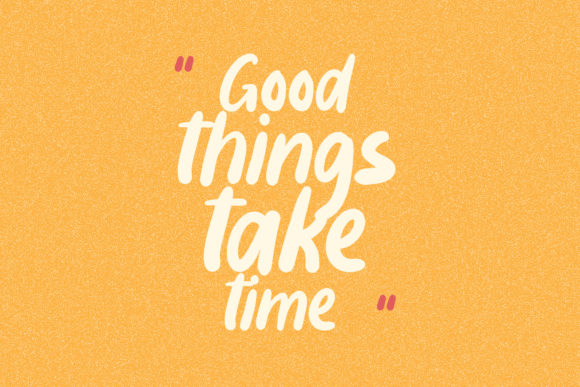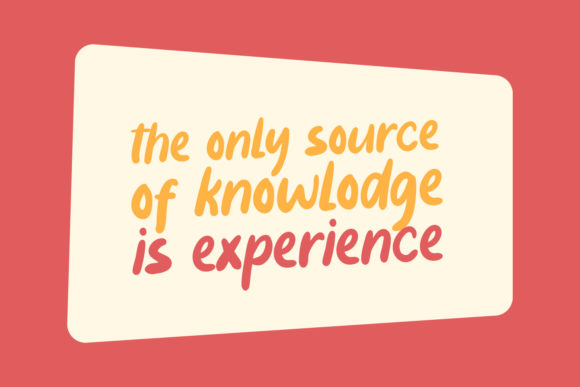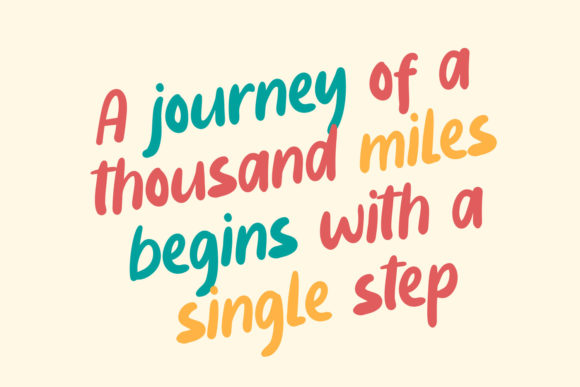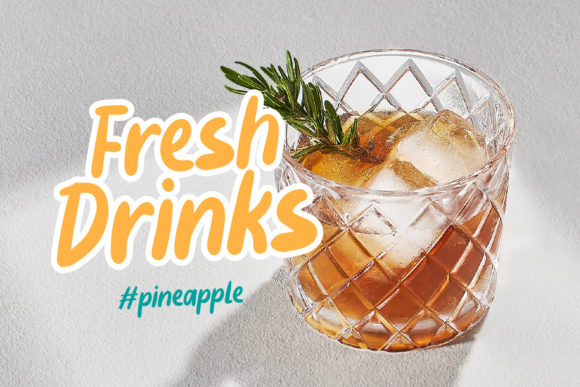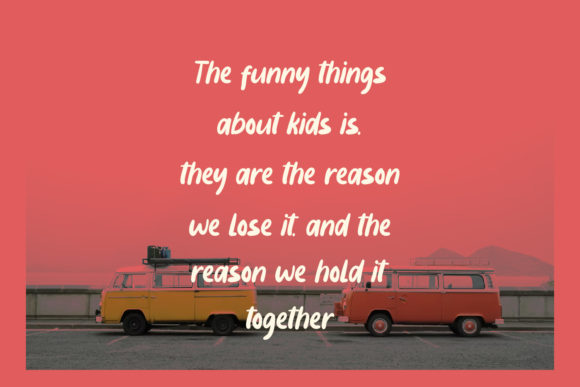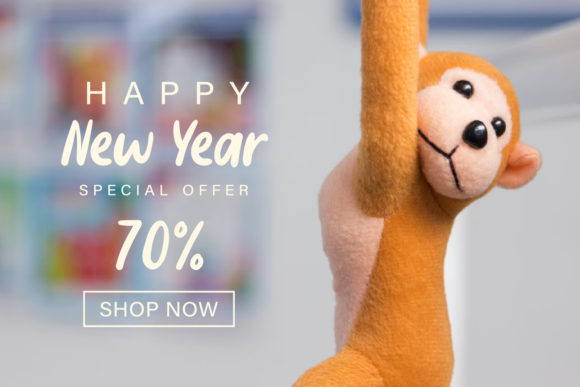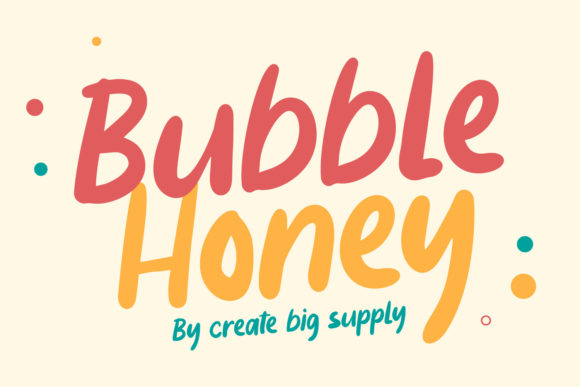
Bubble Honey Font: The Sweetest Addition to Your Typography Collection
Are you tired of using the same old fonts in your designs? Look no further than Bubble Honey Font, a cute, fun, and playful display font that’s sure to elevate your typography game. With its unique and charming style, Bubble Honey is the perfect addition to any designer’s or crafter’s font library.
What Makes Bubble Honey Font So Special?
Bubble Honey Font is a one-of-a-kind display font that’s designed to bring a touch of whimsy and fun to your designs. Its playful and cute style makes it perfect for a wide range of projects, from children’s party invitations and baby shower announcements to social media graphics and branding materials.
One of the things that sets Bubble Honey apart from other fonts is its versatility. No matter the topic or theme, this font can be used to add a touch of personality and charm to your designs. Whether you’re creating something for a kids’ party or a more serious project, Bubble Honey Font is sure to make it stand out.
Key Features of Bubble Honey Font
- Cute and Playful Style: Bubble Honey Font has a unique and charming style that’s sure to capture the attention of your audience.
- Versatile: This font can be used for a wide range of projects, from children’s party invitations to branding materials and social media graphics.
- Easy to Read: Despite its playful style, Bubble Honey Font is easy to read and understand, making it perfect for headlines and titles.
- High-Quality Design: This font is designed with high-quality graphics, ensuring that it looks great in any size or resolution.
How to Use Bubble Honey Font in Your Designs
Using Bubble Honey Font in your designs is easy. Here are a few tips to get you started:
- Pair it with Other Fonts: Bubble Honey Font looks great when paired with other fonts, such as sans-serif fonts like Arial or Helvetica.
- Use it for Headlines and Titles: This font is perfect for headlines and titles, where its playful style can really shine.
- Add Some Color: Bubble Honey Font looks great in a variety of colors, so don’t be afraid to experiment and find the perfect hue for your design.
Why Designers and Crafters Love Bubble Honey Font
Designers and crafters love Bubble Honey Font for a variety of reasons. Here are a few:
- It’s Fun and Playful: This font adds a touch of whimsy and fun to any design, making it perfect for projects that need a little extra personality.
- It’s Versatile: Bubble Honey Font can be used for a wide range of projects, from children’s party invitations to branding materials and social media graphics.
In conclusion, Bubble Honey Font is a cute, fun, and playful display font that’s sure to elevate your typography game. With its unique and charming style, versatility, and ease of use, this font is perfect for designers and crafters who want to add a touch of personality and charm to their designs. So why wait? Download Bubble Honey Font today and start creating amazing designs that will capture the attention of your audience.